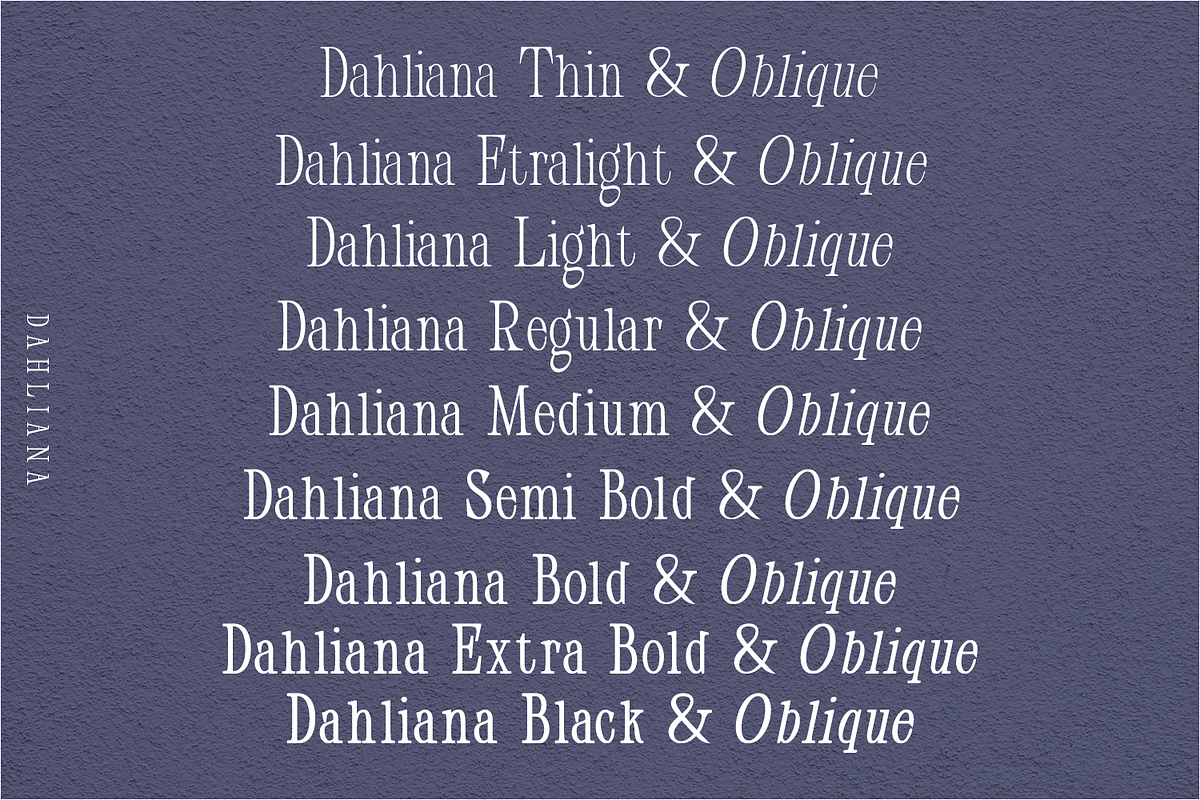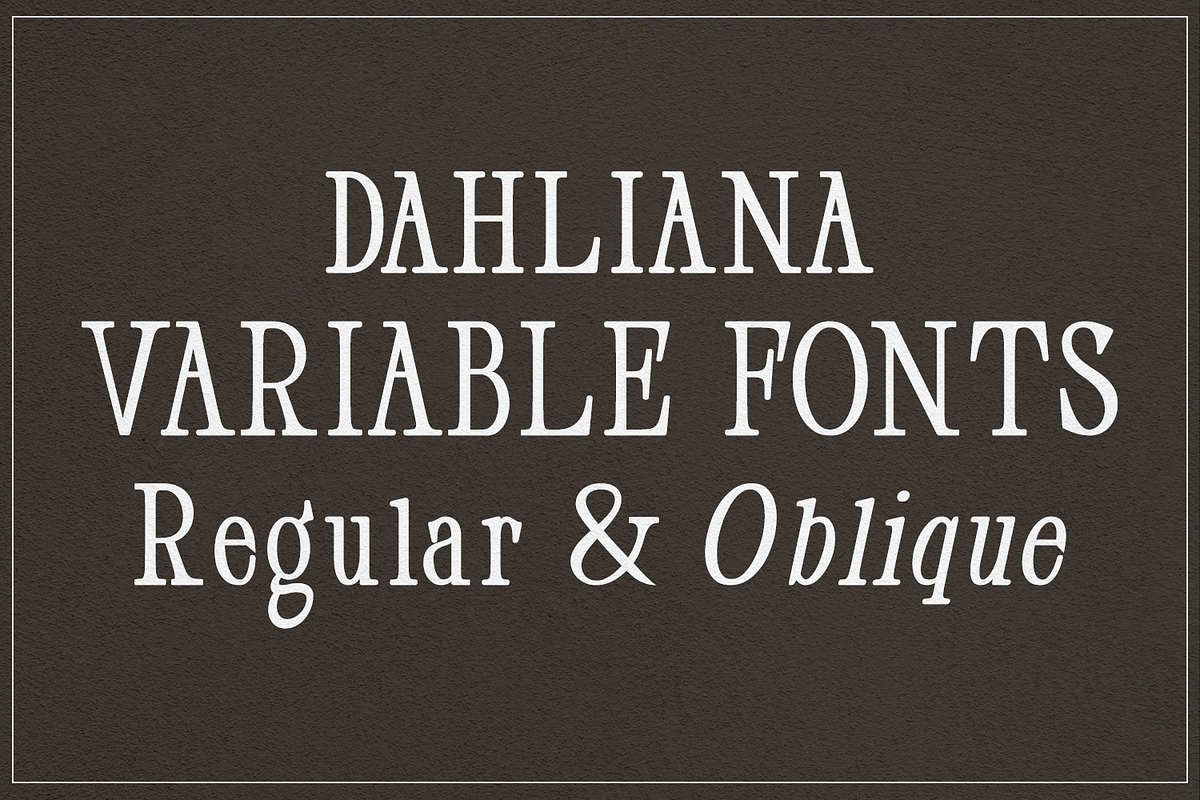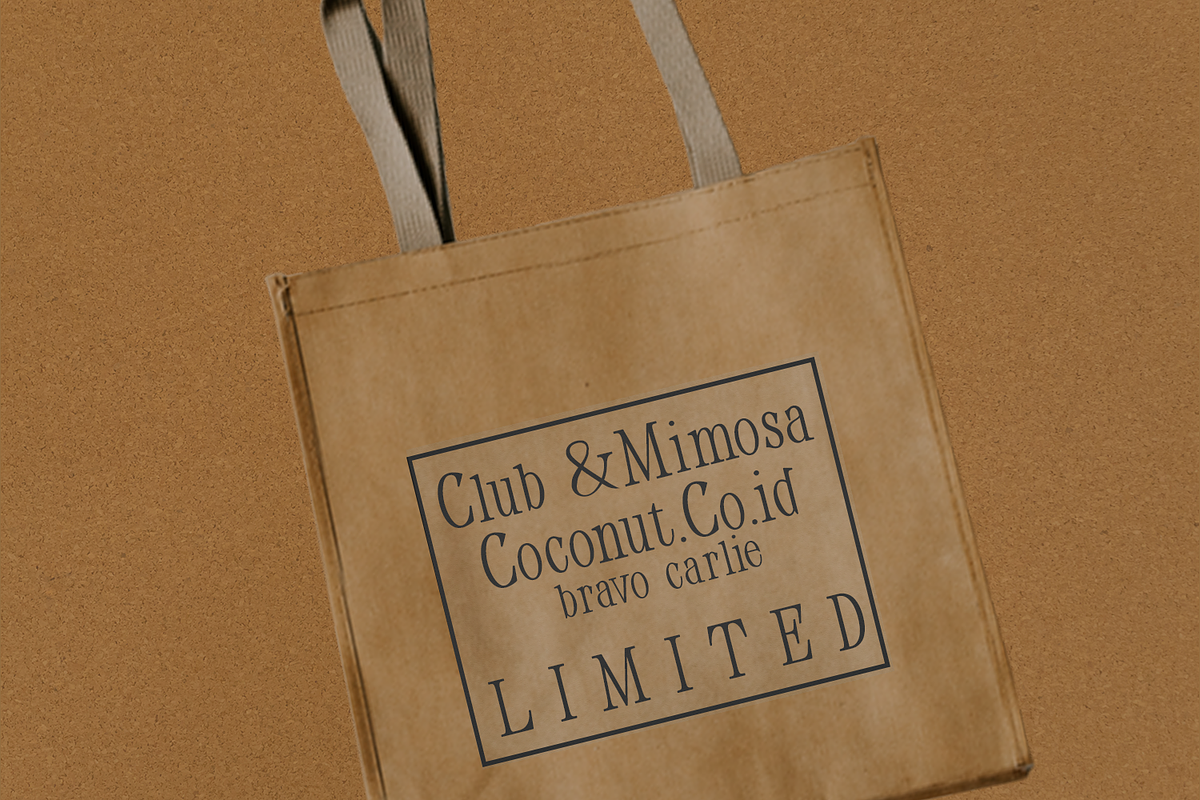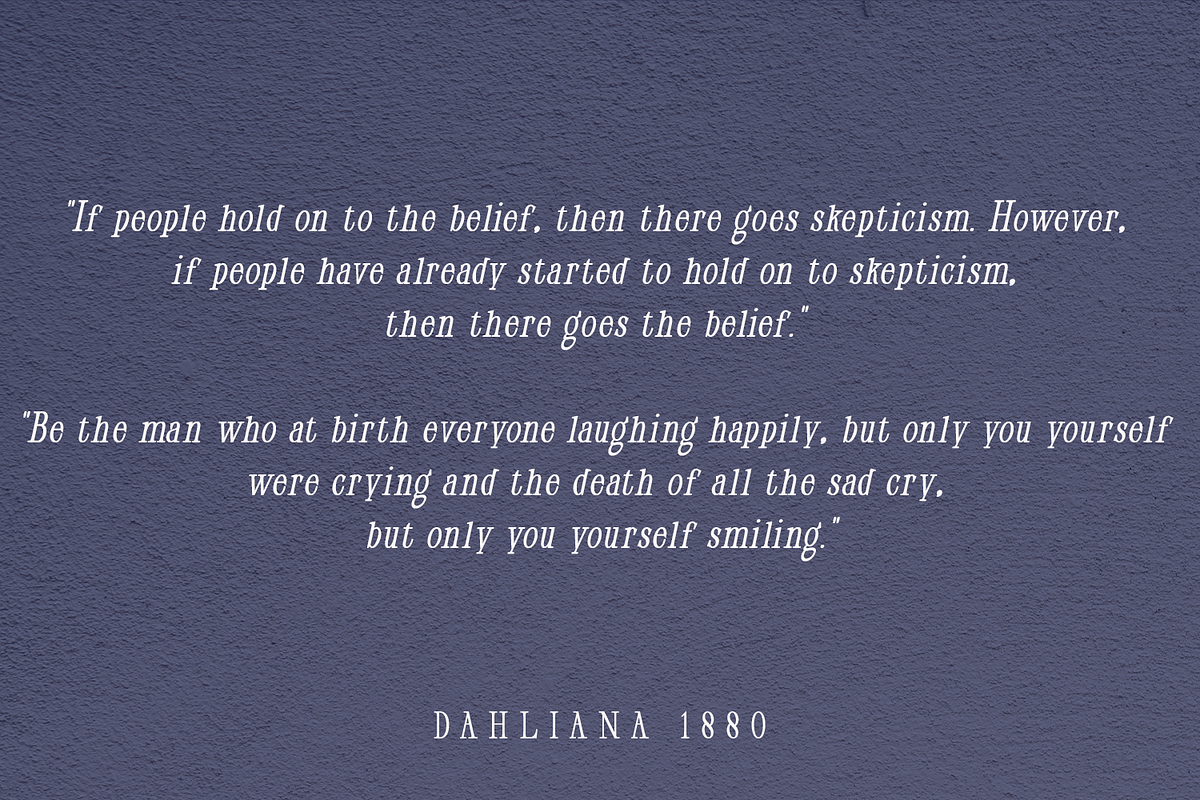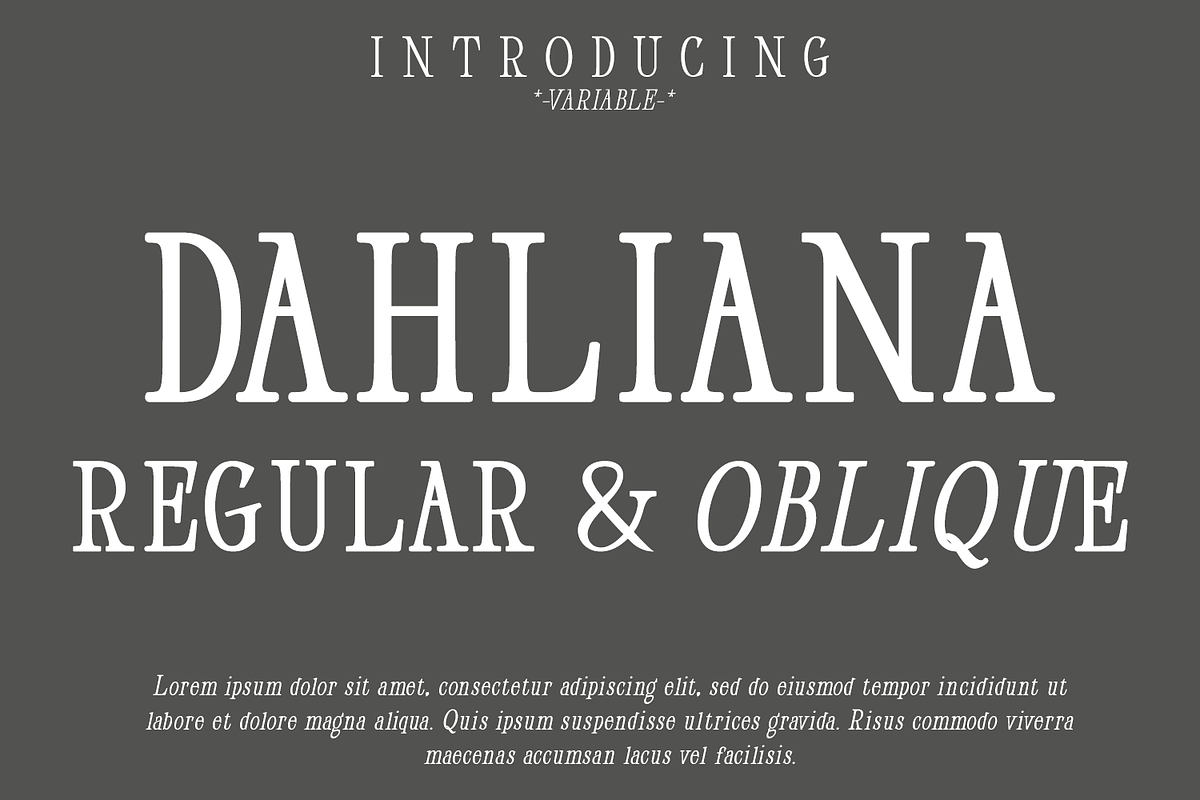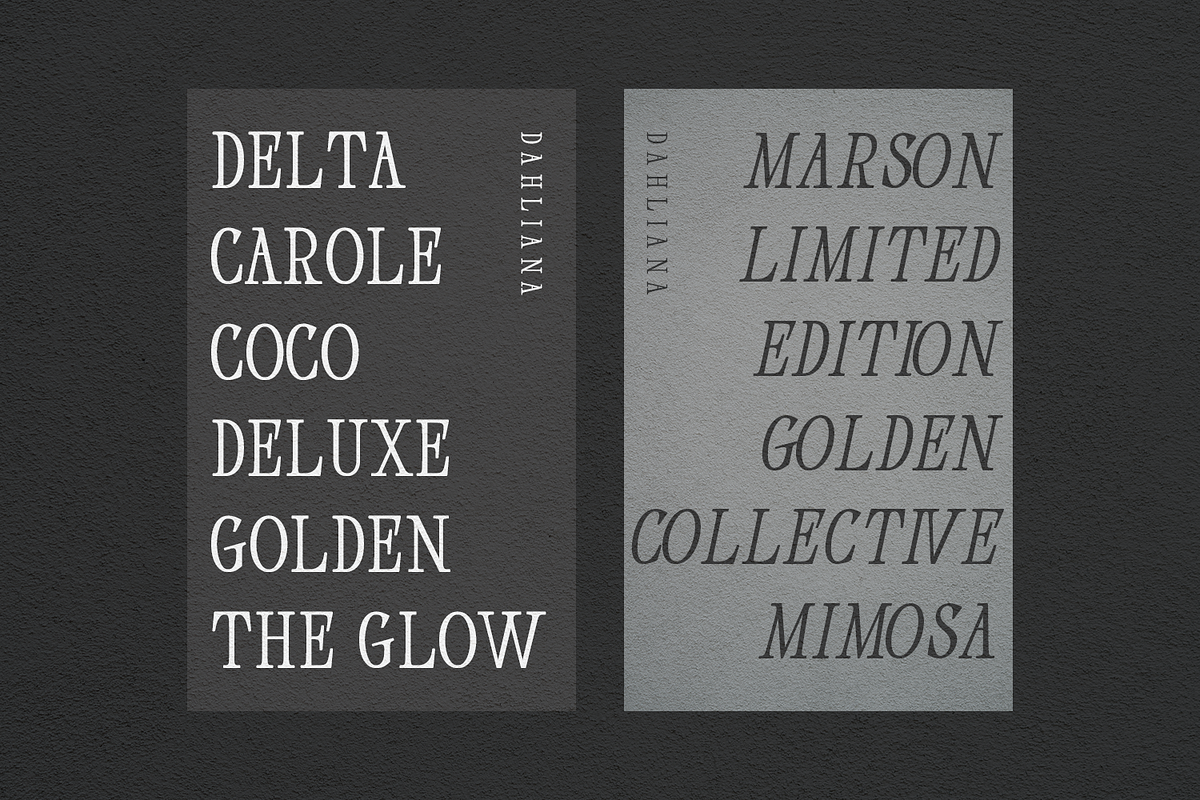
Dahliana Serif classic Old Style
Dahliana is a humanist serif type family that has the heritage of classic Old Style and Transitional type while having the crisp lines and functionality of contemporary fonts. Its defining features include a high-contrast combined with diagonal stress, along with pinched stems and horizontals.
There are 18 fonts altogether over 9 weights in roman and italic, you can also avail of one variable fonts which allow you to fine tune the weight to your exact liking.